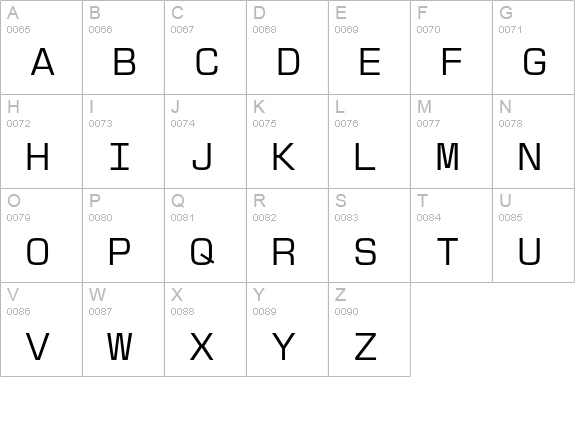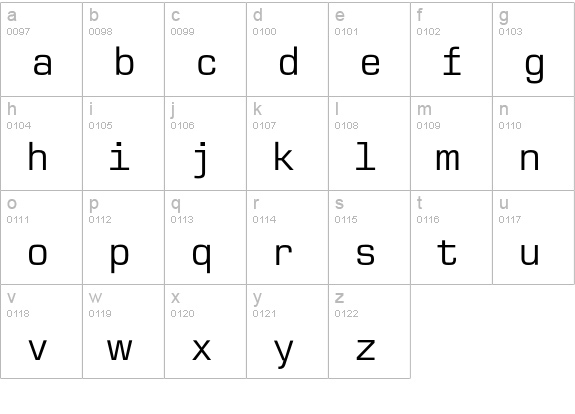
EurostileMonoEF-Regular Font Details
EurostileMonoEF-Regular is the standard, neutral variant in the EurostileMonoEF typeface family \xE2\x80\x94 well suited to general body text, paragraphs, and standard typographic work.
EurostileMonoEF-Regular is a modern and versatile monospaced font that exudes a sleek and professional aesthetic. With its clean lines and geometric design, this typeface is perfect for creating a contemporary look in your projects. The consistent character width of EurostileMonoEF-Regular ensures easy readability and a polished appearance. What sets EurostileMonoEF-Regular apart is that it is available for free download at FontsMarket.com. This means you can easily access this high-quality font without any cost, making it a valuable addition to your design toolkit. Whether you're working on web design, branding, or print materials, EurostileMonoEF-Regular offers a sophisticated and polished typography solution that will elevate your projects to the next level. Unlock the potential of this versatile font and enhance your designs with EurostileMonoEF-Regular today.